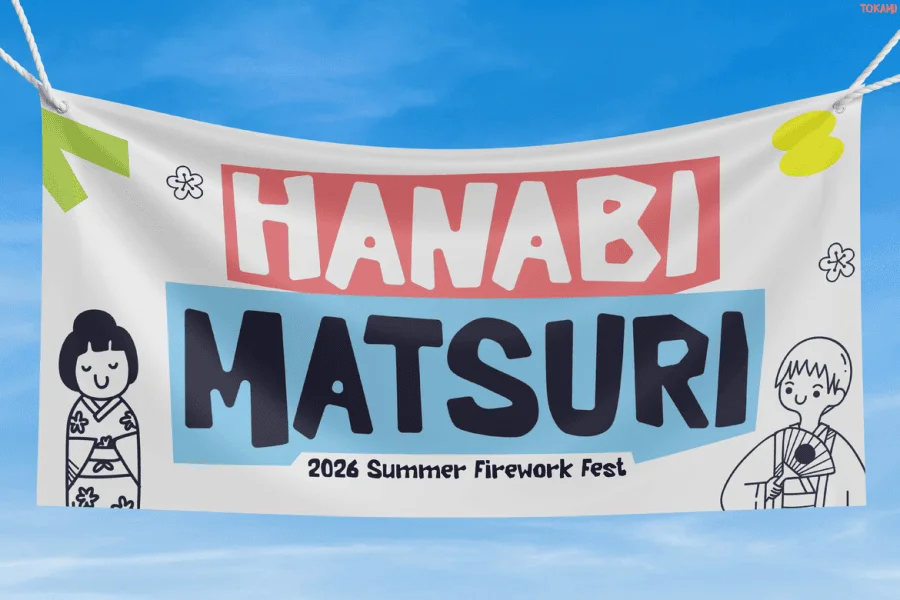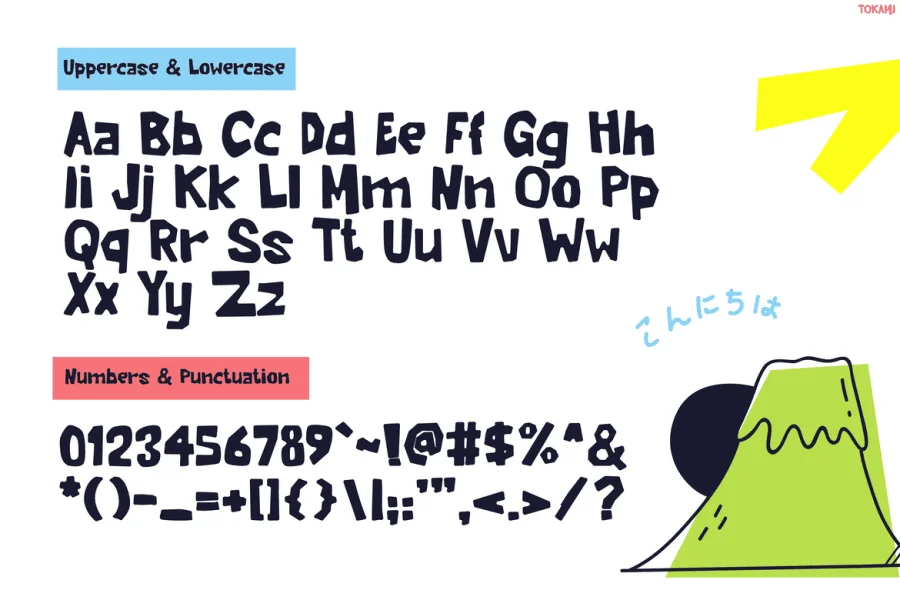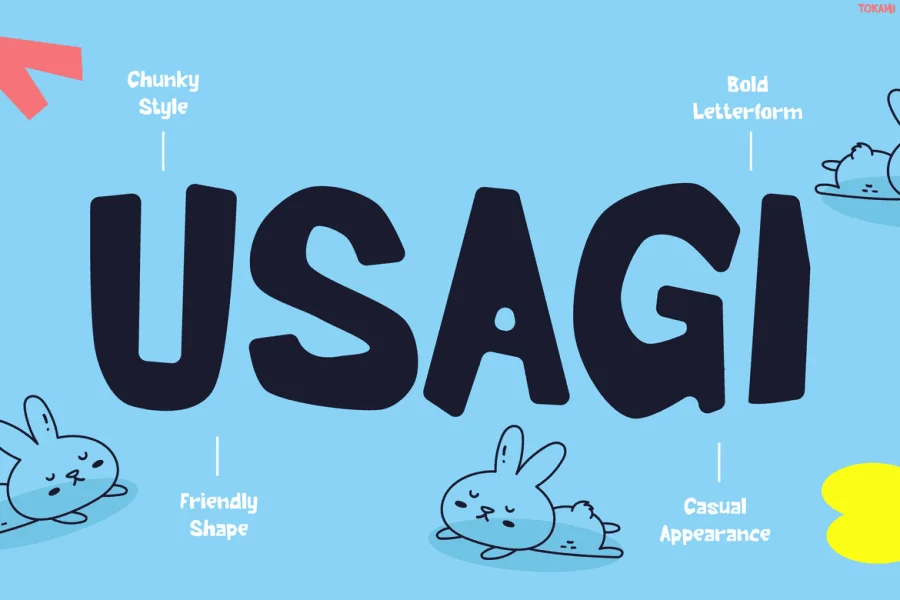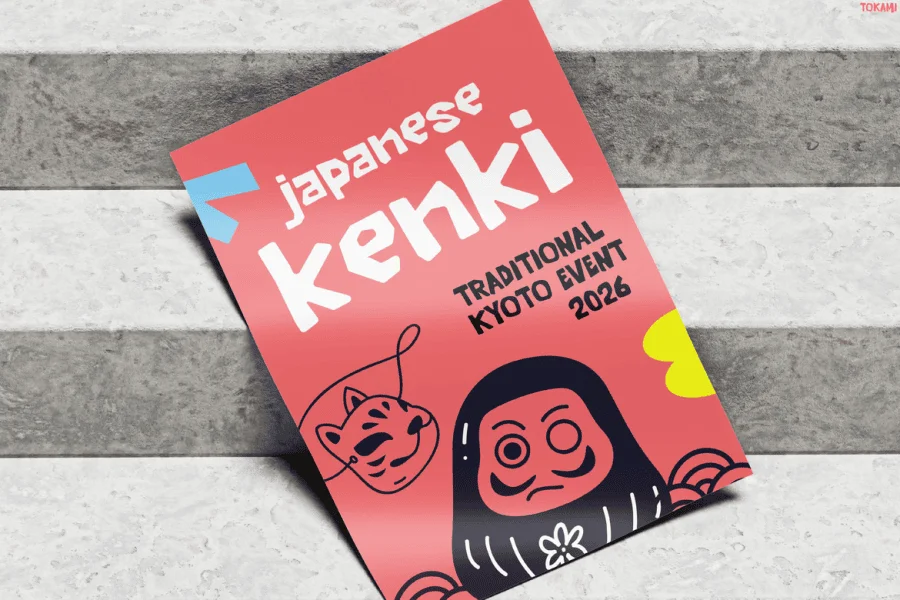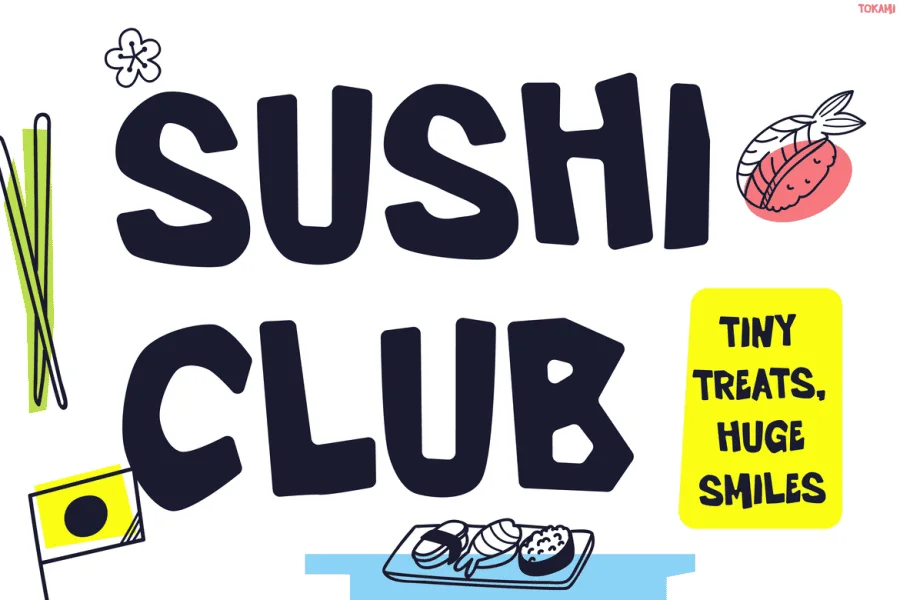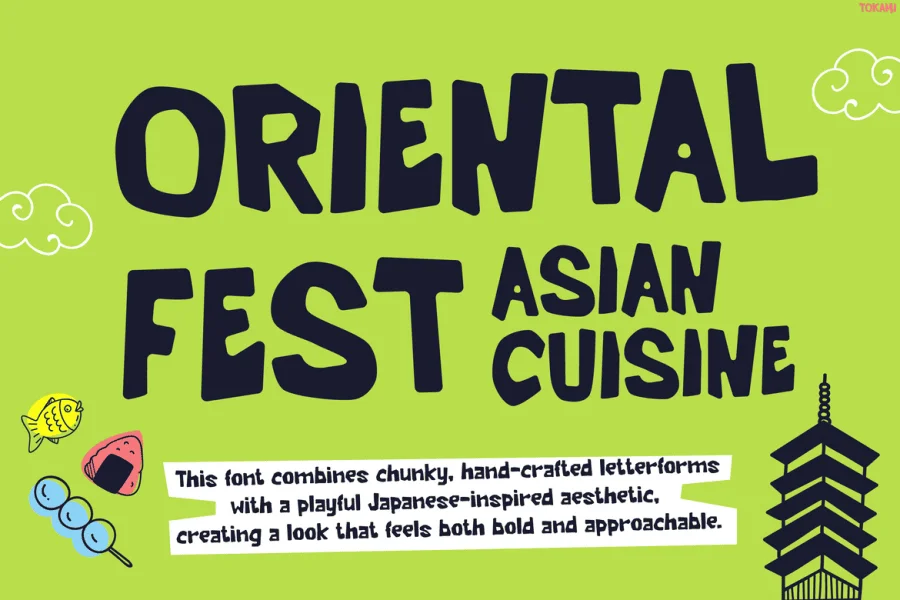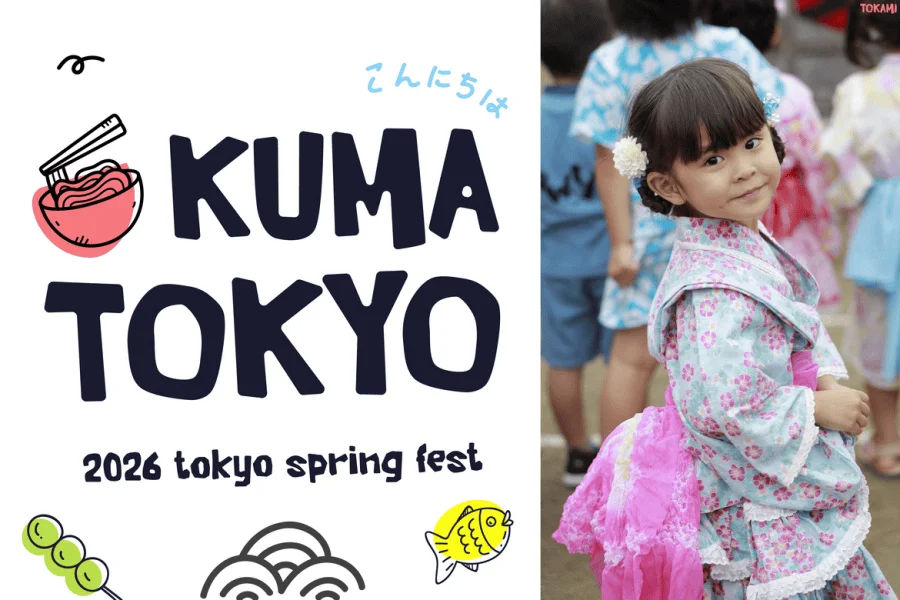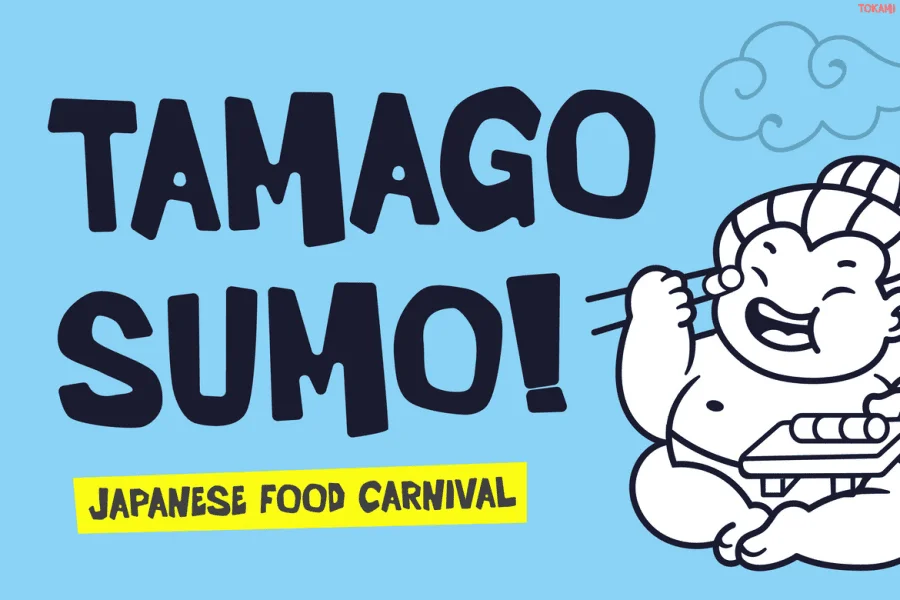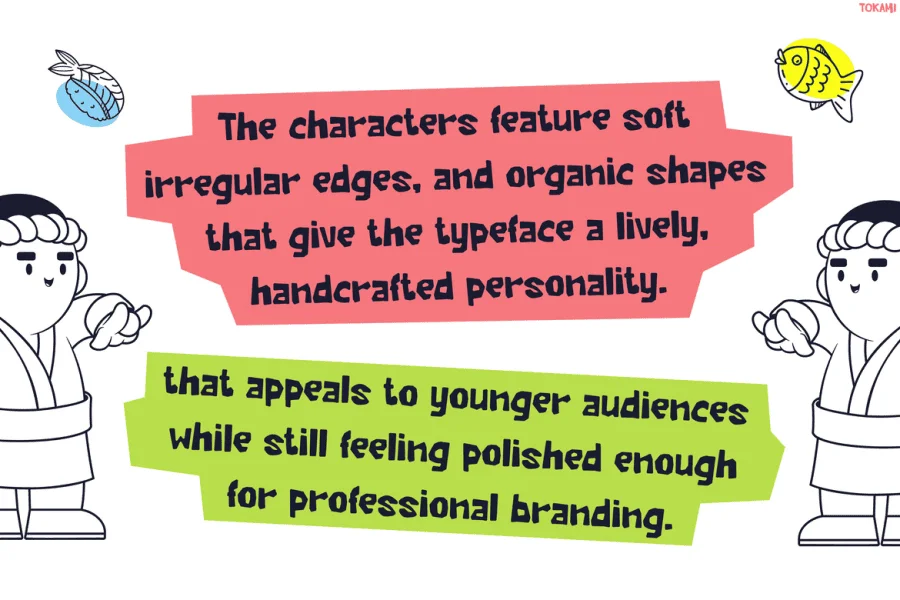
Tokami is a chunky, hand-crafted display typeface with a bold, paper-cut aesthetic. The letterforms feature thick, substantial shapes with slightly rounded corners and irregular, organic contours that give each character a distinct, hand-carved quality. Its upright, compact structure and shifting baseline create a lively, animated rhythm, while the abrupt, flat-cut terminals emphasize its solid, blocky presence.
Evoking a playful, East Asian-inspired design aesthetic, this typeface is perfectly suited for cultural festival posters, Japanese cuisine branding, and casual dining menus. Its friendly yet bold personality also makes it an excellent choice for children's book covers, toy packaging, and promotional materials that require a warm, approachable, and hand-made feel.